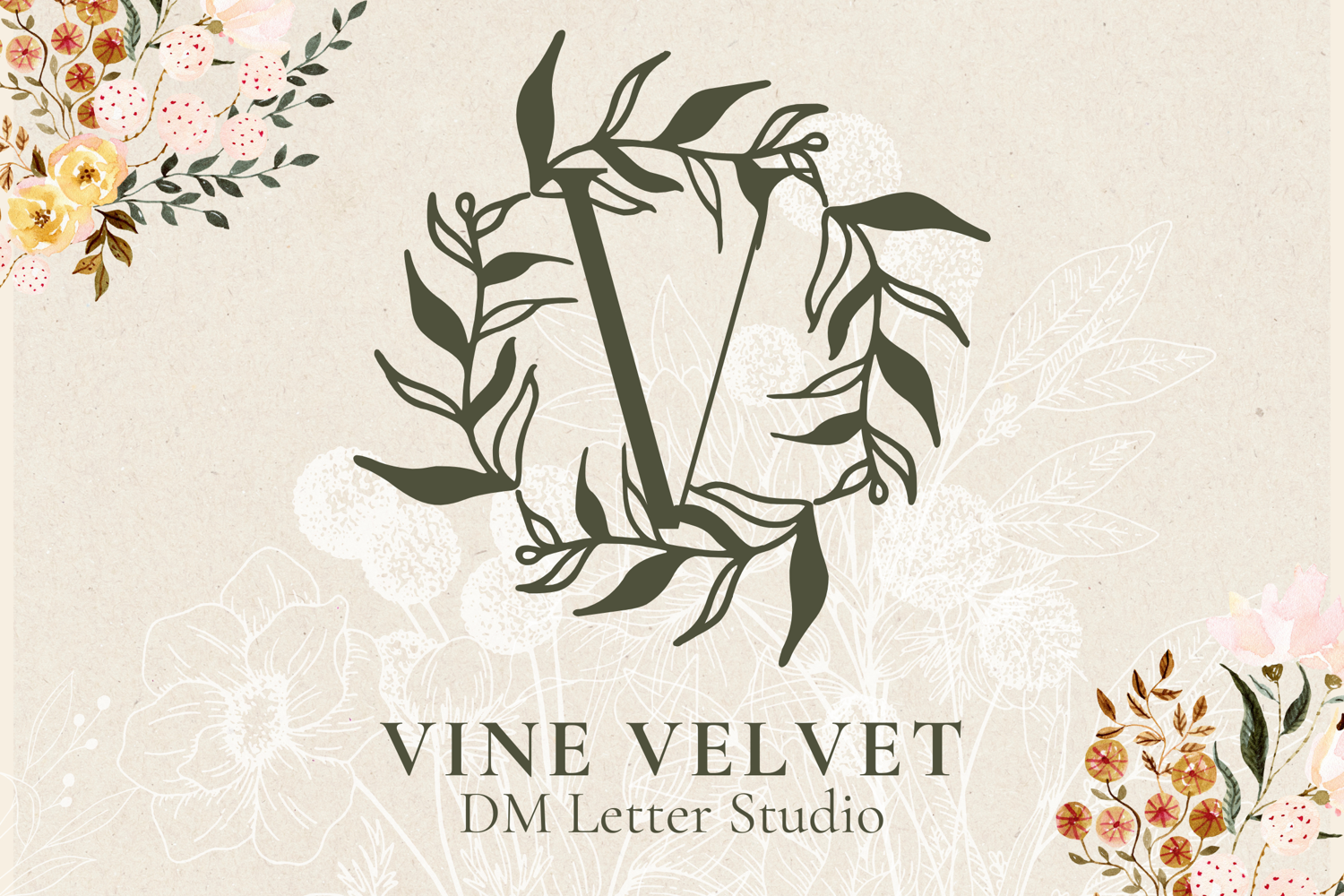
Vine Velvet Monogram - Elegant Serif Monogram Font
Vine Velvet Monogram
Vine Velvet Monogram – Elegant Serif Monogram Font with Vine Illustrations
Vine Velvet Monogram is a luxurious serif monogram font adorned with graceful vine and leaf embellishments. Each uppercase letter is framed by delicate botanical elements that evoke softness, elegance, and timeless style. This font is ideal for upscale weddings, custom logos, nature-inspired branding, and personalized gifts that need a romantic touch.
• Botanical Vine Accents: Each letter is paired with gentle, flowing vine illustrations.
• Elegant Serif Foundation: Classic serif structure provides a refined and readable base.
• Versatile Use: Perfect for monograms, name signs, wedding crests, and floral-themed designs.
• Ideal For: Wedding monograms, feminine branding, luxury stationery, Cricut projects, and logo design.